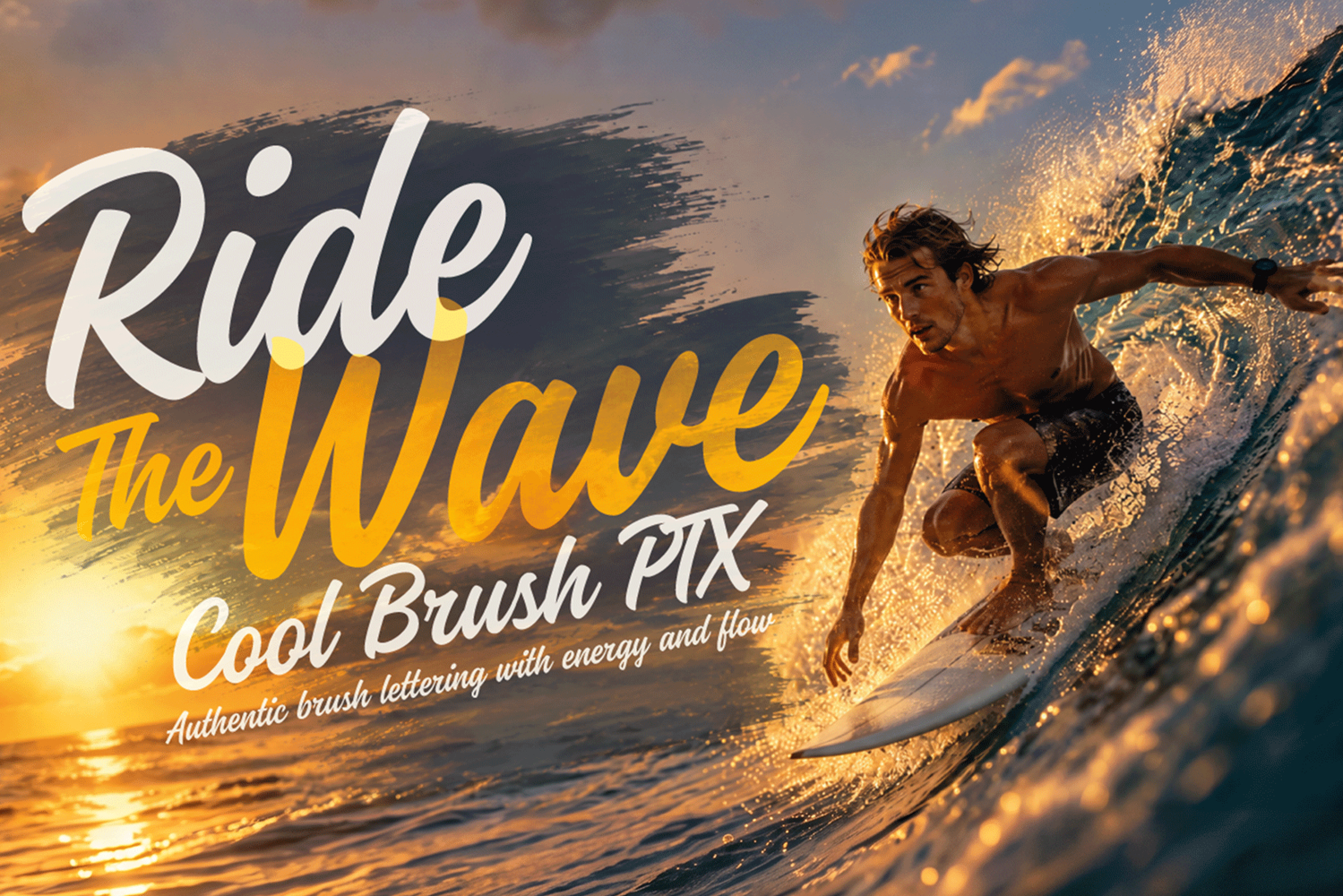
Cool Brush PTX — Energetic Handwritten Brush Font
Cool Brush PTX is an energetic handwritten brush font created by Portuguese type designer Pedro Teixeira. Inspired by fast brush lettering and spontaneous hand-painted signs, it brings movement, personality and a strong human character to bold creative work.
Ideal for logos, branding, headlines, posters, apparel, packaging, album covers, advertising, social media graphics, sports design and custom lettering, Cool Brush PTX is especially effective when typography needs to become a key visual element.
Designed for Custom Lettering
Behind its spontaneous brush appearance, Cool Brush PTX is built with precise and disciplined vector construction.
Nearly all smooth nodes feature carefully aligned horizontal, vertical or diagonal Bézier handles, creating cleaner curves and more predictable outlines.
This structured geometry gives designers greater control after converting text to vector paths. Letterforms can be adjusted, combined and refined more efficiently when creating:
- Logos and wordmarks
- Custom typography
- Lettering compositions
- Logotypes
- Brand identities
- Packaging titles
- Advertising headlines
- Apparel and merchandise graphics
Cool Brush PTX combines the expressive energy of hand-painted lettering with an underlying vector structure designed for professional creative workflows.
Perfect For
Logos • Branding • Wordmarks • Posters • Advertising • Packaging • Apparel • Streetwear • Sports Graphics • Album Covers • Social Media • Editorial Design • Signage • Custom Lettering
Design Tip
Use Cool Brush PTX for short, prominent text such as names, slogans, titles and headlines. Pair it with a clean sans serif for supporting information to create a strong typographic contrast.
For customised logo or lettering work, convert your text to vector outlines in compatible design software and refine the individual letterforms while keeping an editable text version of your original composition.
Cool Brush PTX — expressive brush lettering with professional vector control.